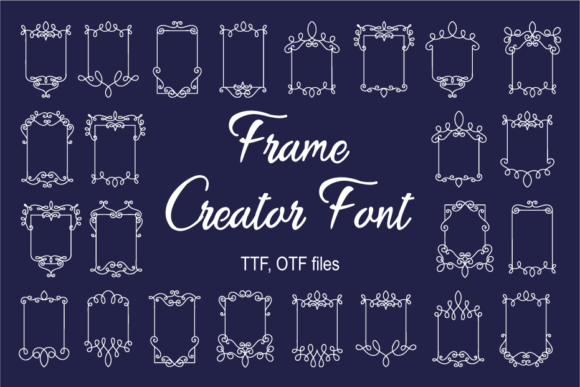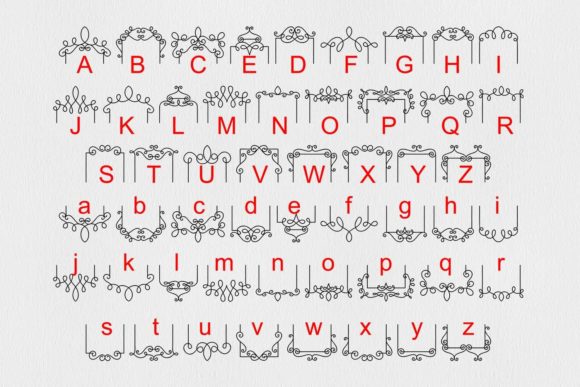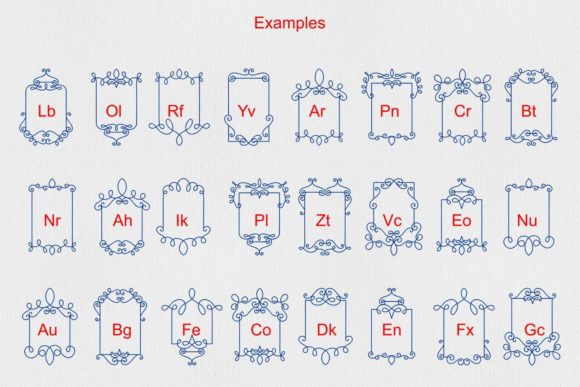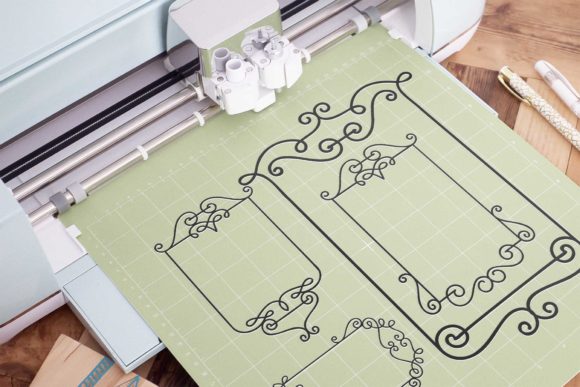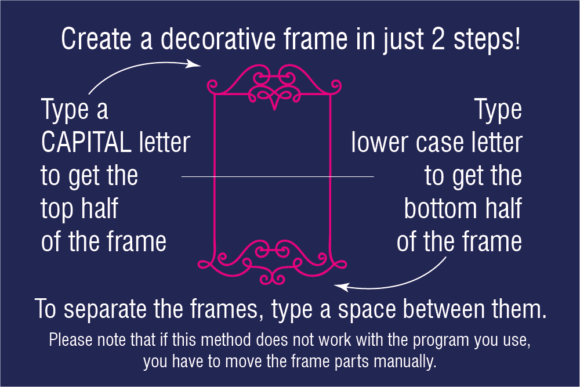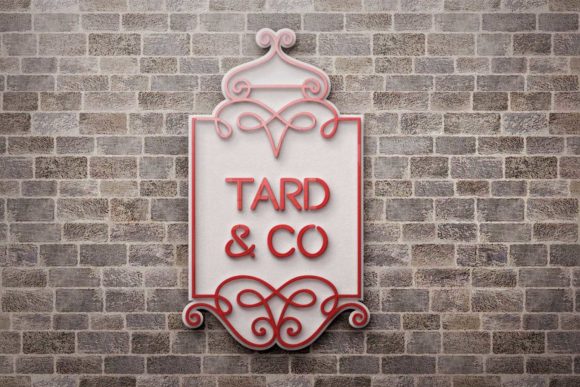
Frame Creator Font
About Frame Creator Font
“Frame Creator” is a highly detailed and useful dingbats font that allows you to easily create decorative frames and borders for a variety of design projects. No matter the topic or purpose, this font is a valuable asset to your font library, as it has the potential to enhance any creation.
The “Frame Creator” font is specifically designed to help you add beautiful and intricate frames to your designs. It features a wide range of elements, including corners, borders, dividers, and decorative motifs that can be combined to create unique and visually appealing frames. Whether you’re working on crafting projects, digital designs, presentations, or greeting cards, this font provides endless possibilities for adding a touch of elegance and sophistication.
With “Frame Creator,” you have the freedom to customize and create frames that suit your specific needs. The detailed and intricate nature of the dingbats allows you to achieve a professional and polished look without spending excessive time or effort. Simply select the desired elements and arrange them to create a frame that perfectly complements your content.
The versatility of “Frame Creator” makes it suitable for various design applications. If you’re a crafter, you can use this font to embellish scrapbook pages, handmade cards, or other paper crafts. In digital design, you can incorporate the frames into social media graphics, website banners, or digital collages. Additionally, this font is ideal for creating visually appealing presentations or enhancing the overall aesthetic of greeting cards.
To make the most of “Frame Creator,” experiment with different combinations of elements and play with variations in size, color, and arrangement. You can mix and match the corners, borders, and dividers to create unique frames that suit your specific design vision. Additionally, consider combining the frames with other fonts or graphic elements to create a cohesive and visually engaging composition.
Overall, “Frame Creator” is a useful and highly detailed dingbats font that adds a touch of sophistication to your design projects. Whether you’re a crafter, digital designer, or presentation creator, this font allows you to effortlessly create beautiful frames that enhance your content. With its versatility and customization options, “Frame Creator” is a perfect addition to your font library, giving you the ability to elevate any creation with elegant and decorative frames.